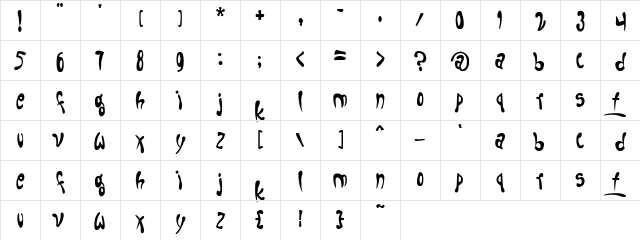
Fruitopia Free Font
Fruitopia Fruitopia
Style: Fruitopia
Design Context for Fruitopia
Fruitopia is a composed and adaptable typeface that performs quietly and consistently across a wide range of design contexts.
Pro Tip: Use Fruitopia in both headline and body roles to test its range before committing to a single application.